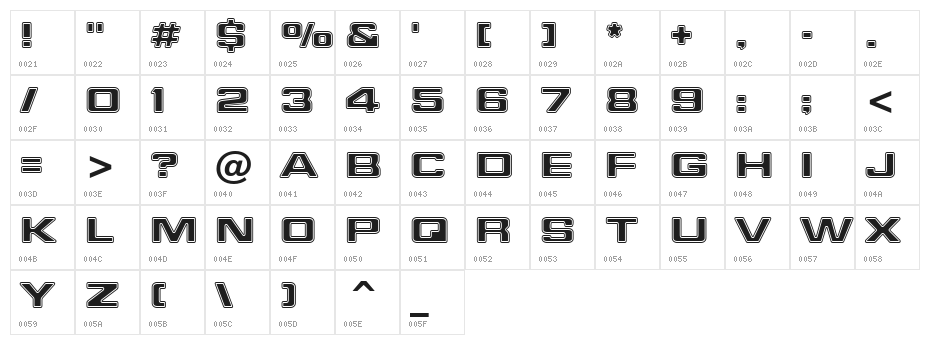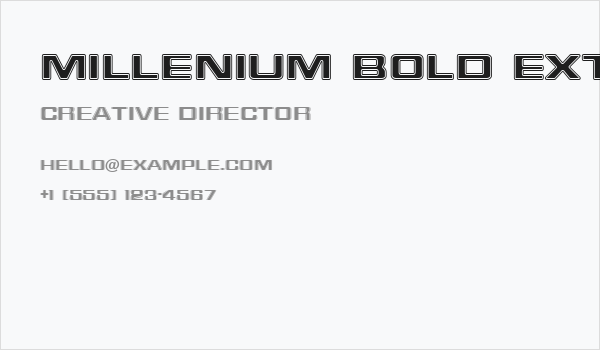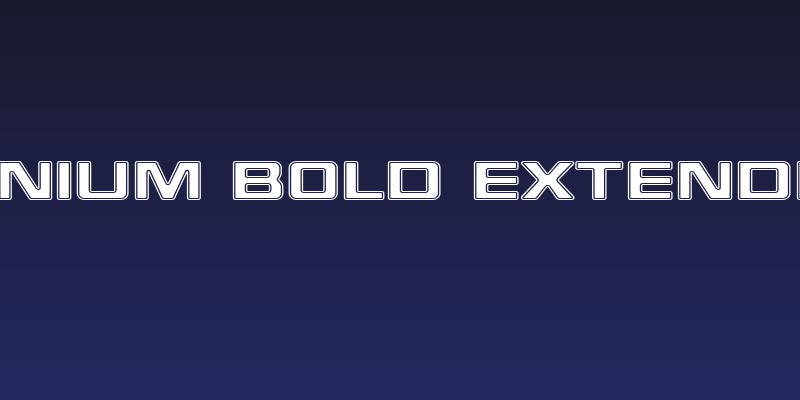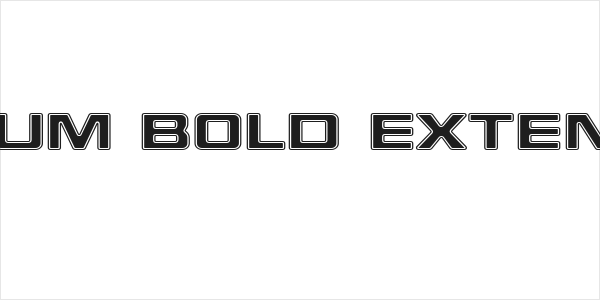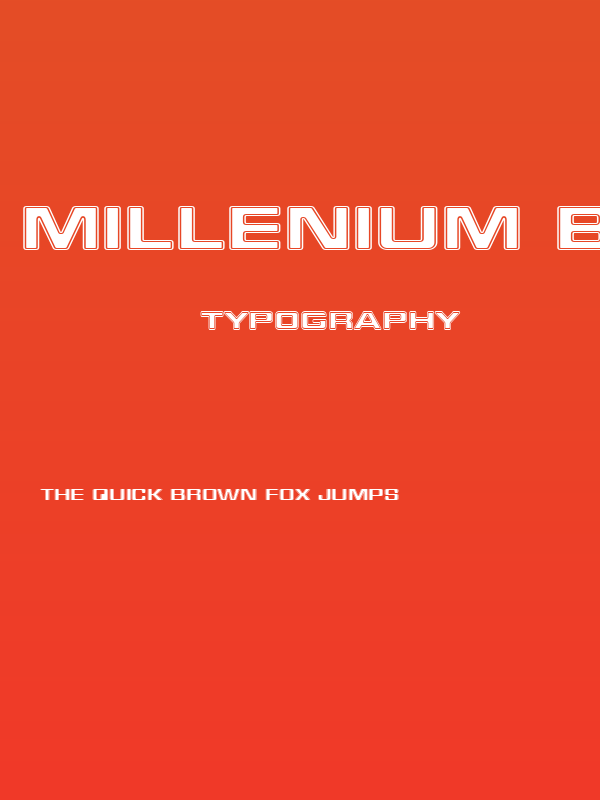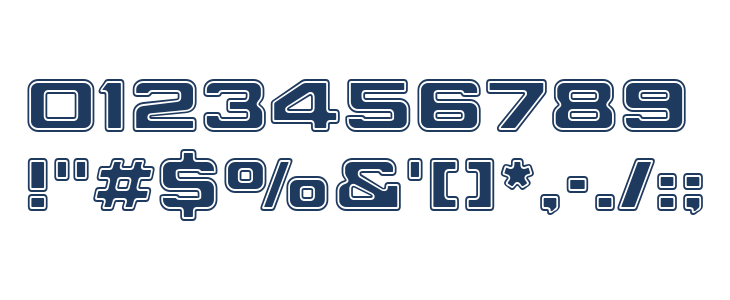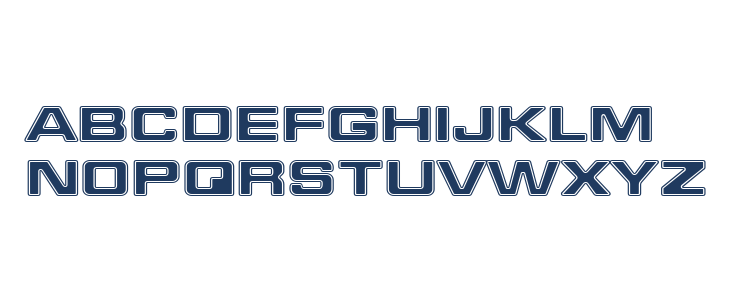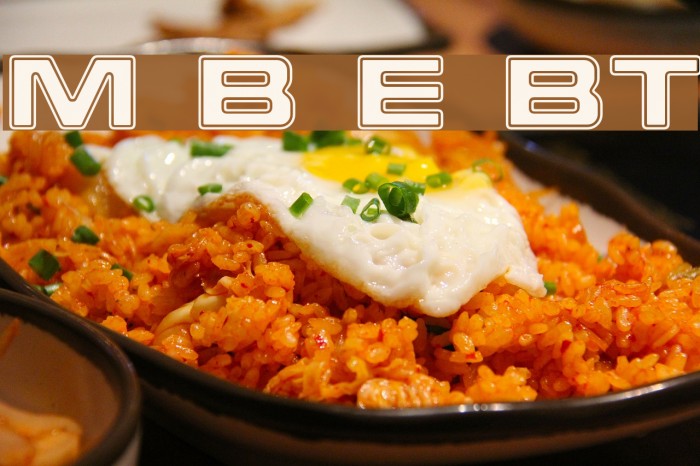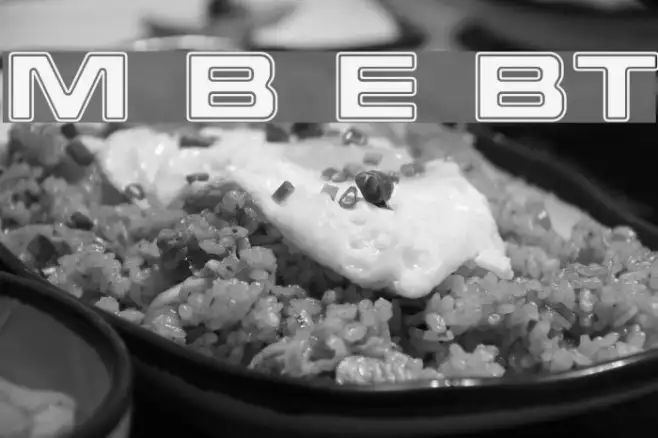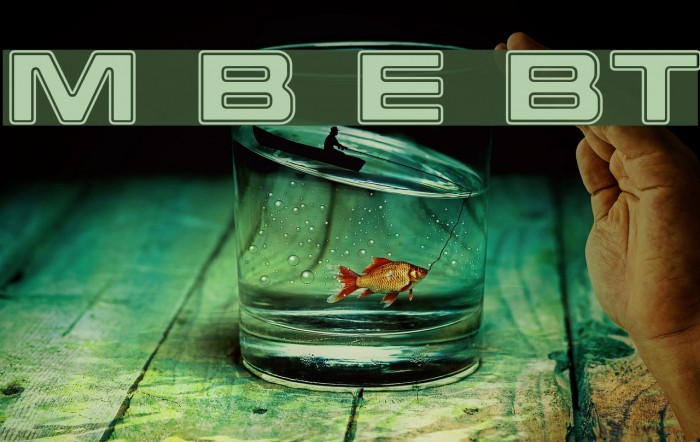
Millenium Bold Extended BT Font
Millenium Bold Extended BT Description
This font features a bold and extended style, characterized by its strong, geometric letterforms with a distinct outline. The uppercase letters are uniform in height, creating a cohesive and structured appearance. The font's design includes a double-line effect, adding depth and a modern touch. The numerals and special characters maintain the same bold and extended characteristics, ensuring consistency across all glyphs. This style is particularly suited for impactful and attention-grabbing designs, where clarity and emphasis are key.
| Proposed Projects | Ideal for branding, posters, headlines, and any design requiring a strong visual impact. |